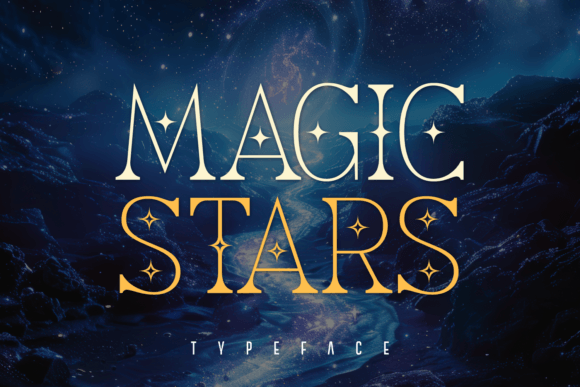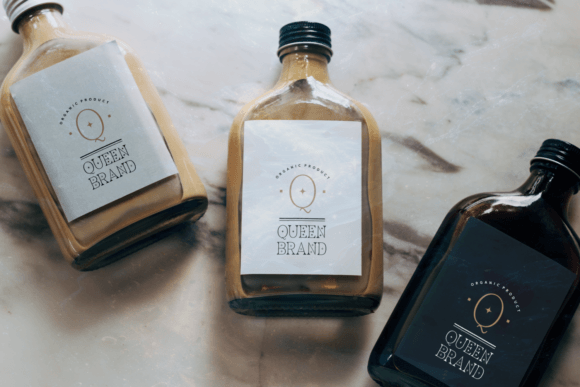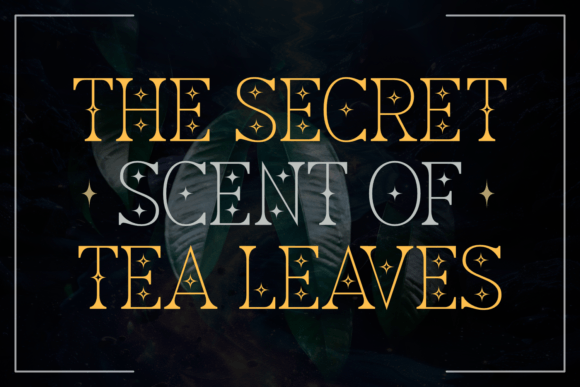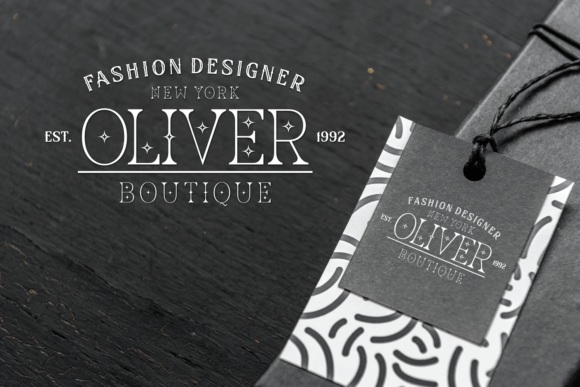
Magic Stars Font: Elegant Serif for Cosmic Branding & Logo Design
About the Magic Stars Font
Discover the charm of Magic Stars Font. This font is a perfect blend of modern aesthetics and classic appeal. Imbued with enchantment and sophistication, Magic Stars is an awe-inspiring, modern typeface graced with celestial charm. This serif font effortlessly unites grace and whimsy, injecting every design it touches with a dose of cosmic beauty. Magic Stars is the perfect choice for crafting refined templates, engaging brochures, dynamic videos, and unforgettable branding assets. It stands out on logos, elevates invitations, and lends a unique elegance to layout designs. Its versatility extends to elegant craft-making and beauty-themed designs. With Magic Stars, your creative odyssey will shine brighter than ever.
Magic Stars Font Usage Examples
Magic Stars Font Example